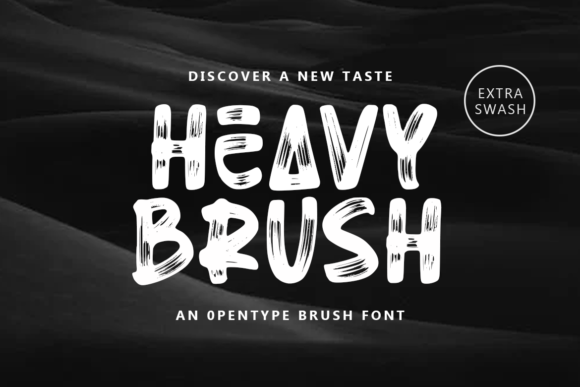
In a world saturated with online content, standing out from the digital crowd can seem like a Herculean task. Unleash your inner creative genius with Heavy Brush Font, the ultimate display font designed to make your web designs burst with personality and style.
With its bold and impactful strokes, Heavy Brush Font commands attention like a magnet. Its urban and street-inspired aesthetic infuses your creations with an edgy and contemporary vibe, ensuring they leave a lasting impression on your audience.
This font is not just a collection of letters; it's a gateway to a world where your designs come alive. Its captivating curves and sharp angles dance together in perfect harmony, creating a visual symphony that will leave your audience mesmerized. Say goodbye to bland and uninspired designs and embrace the allure of Heavy Brush Font.
Step into the spotlight and let Heavy Brush Font be your secret weapon in the battle for online visibility. Its unique character and undeniable charisma will elevate your designs to new heights, attracting visitors like moths to a flame.
Don't settle for mediocrity. Choose Heavy Brush Font and embark on a journey of creative exploration. Its versatility knows no bounds, making it the perfect choice for logos, posters, social media graphics, and any other digital creation that demands attention.
As RochArt, the creative mind behind this masterpiece, so eloquently puts it, "Heavy Brush is a cool and bold display font, ideal for urban or street designs." Experience the transformative power of Heavy Brush Font today and witness the remarkable difference it can make in your designs.